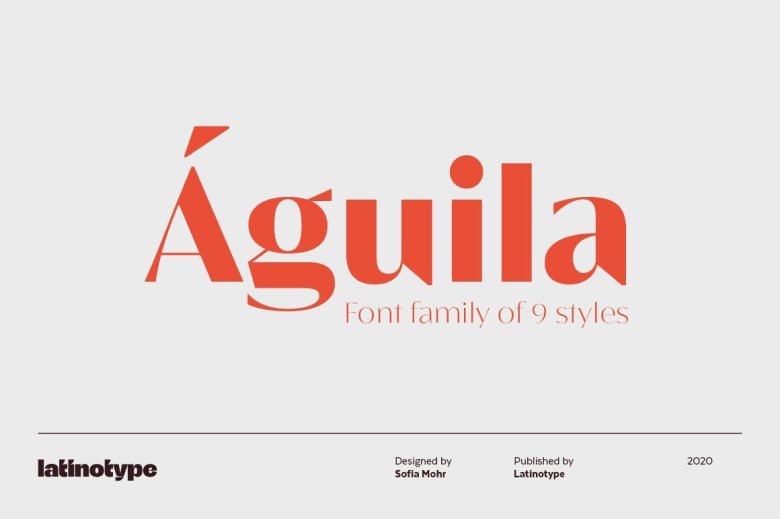
Águila Sans Serif Font is a classic and modern sans serif font. It’s designed and shared by Latinotype. This typeface is based on the combination of straight lines, curves and triangular shapes as well as on Didone typefaces.
Águila Sans Serif Font